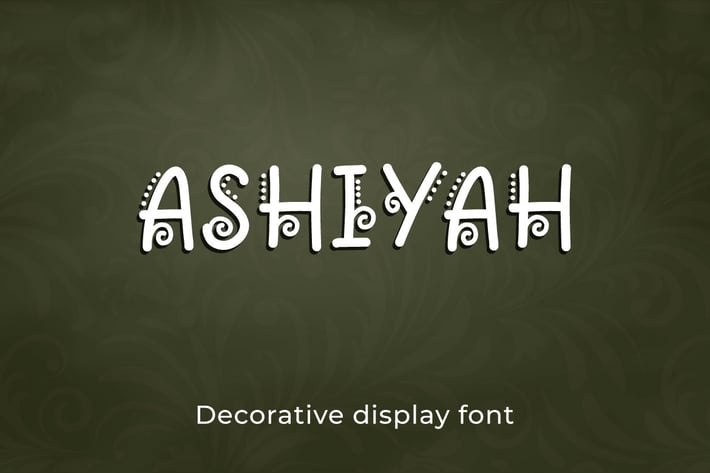
Ashiyah - Decorative Display Font
Hello! Ashiyah is a decorative handwritten display font.
Ashiyah can be used in any works such as flyer, book title, advertisement, social media content, logo and many more.